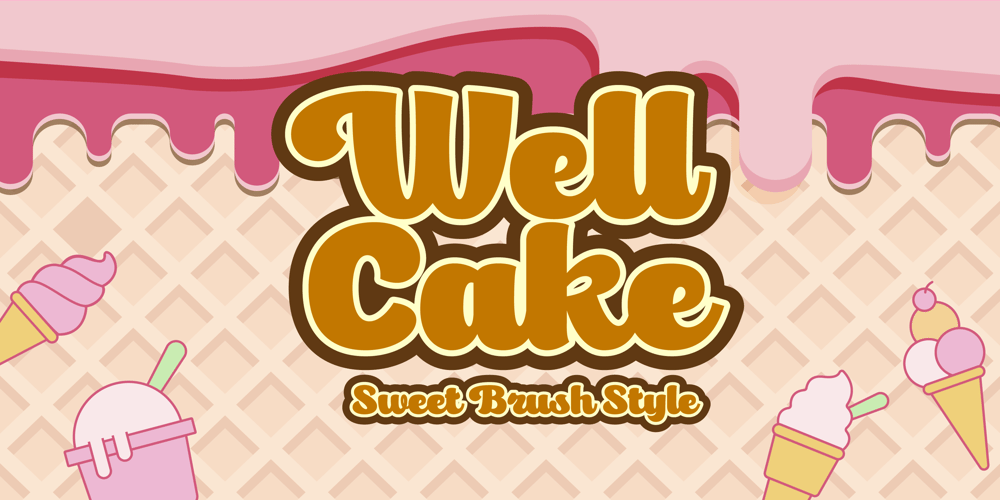
Well Cake
Well Cake font
Well Cake Font Family was designed by Sugi Yanto and published by Sign Studio. Well Cake contains 1 styles and family package options. Well Cake is a font that has a sweet, cute, warm typeface and some retro style. The body is quite thick, so this font is perfect for logo designs, posters, brochures and various other printing needs. Alternate Characters with 2 Stylistic Sets will make it easier to select long texts. Hope this font can help your design project.